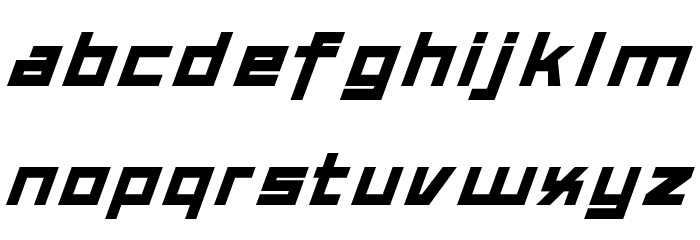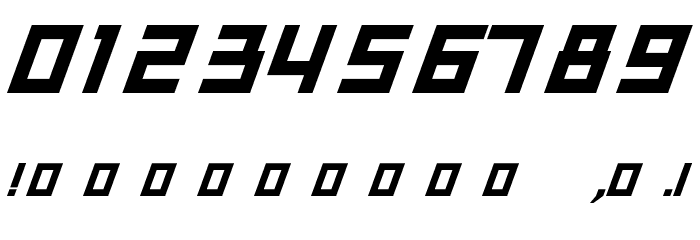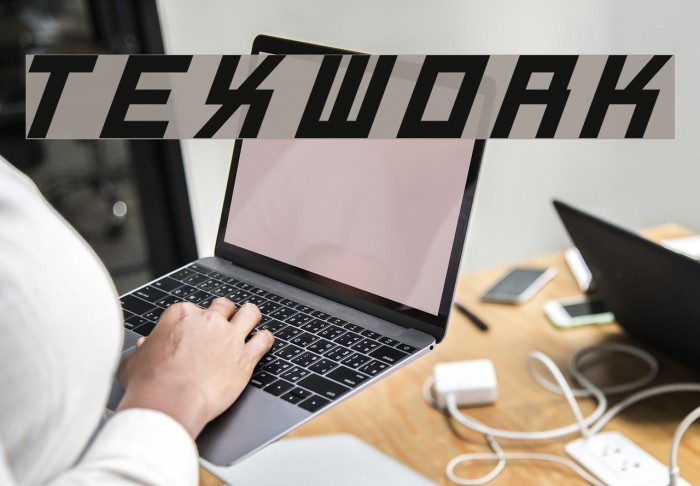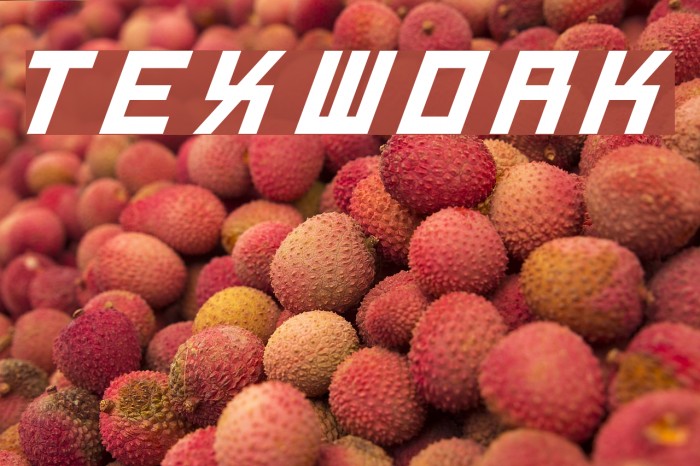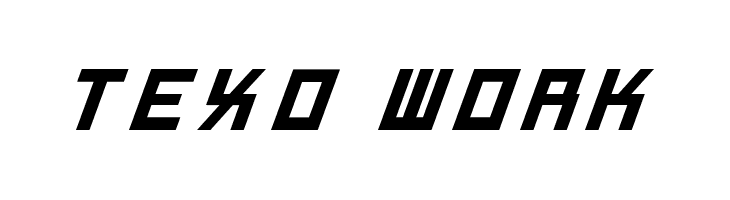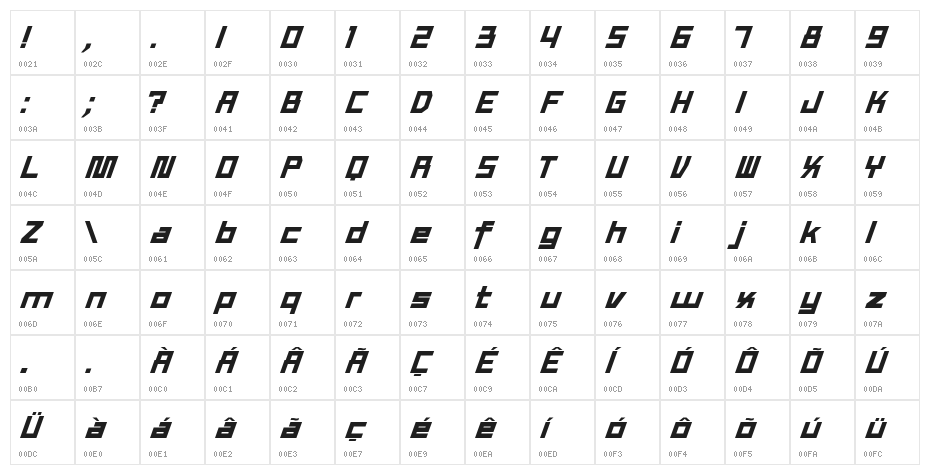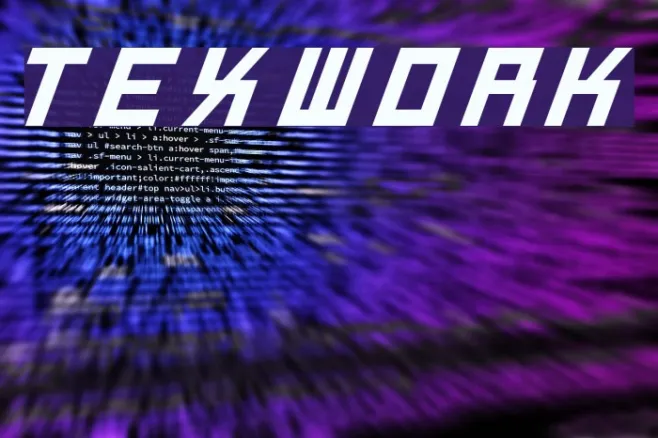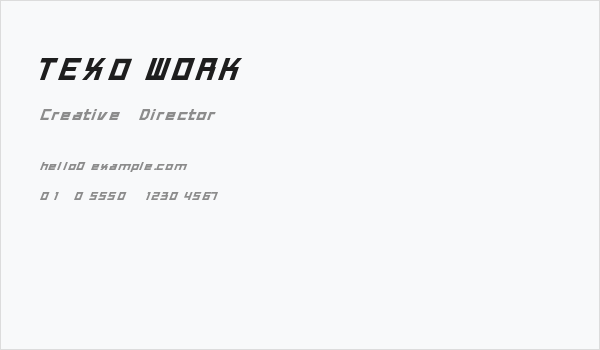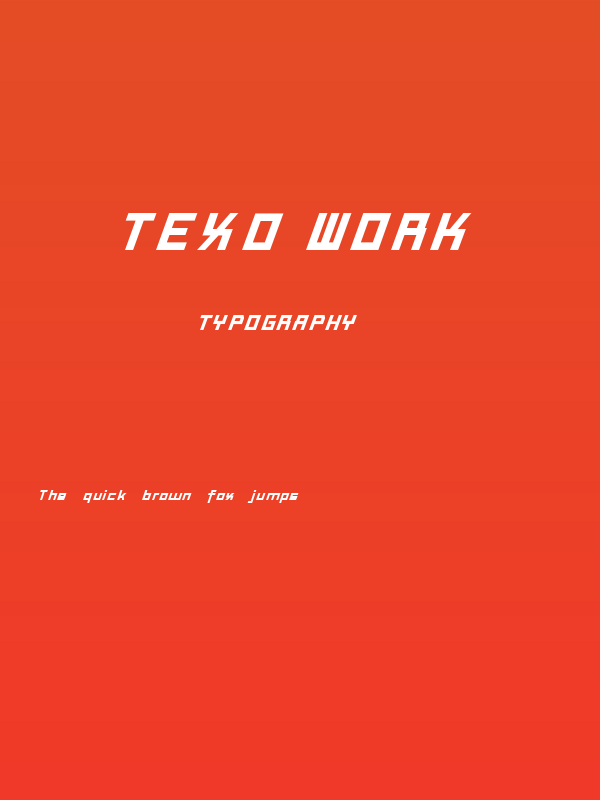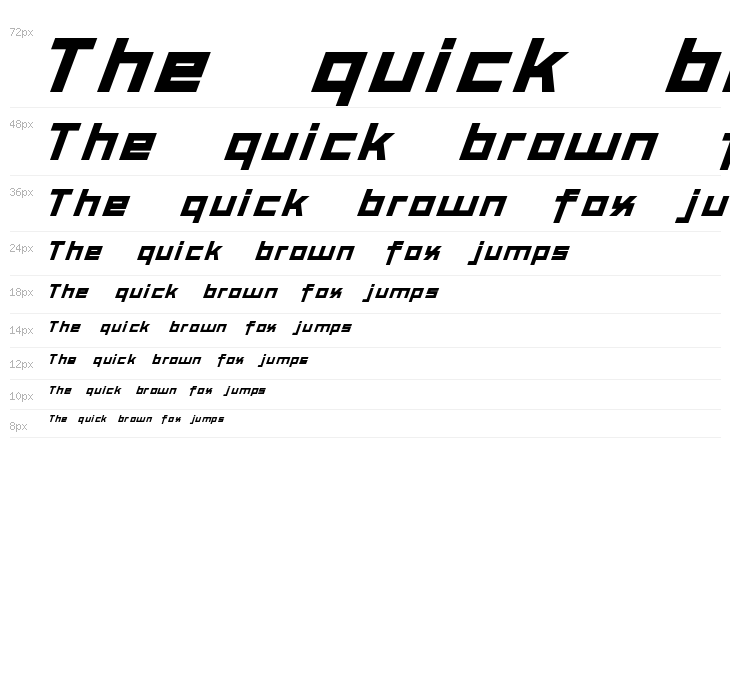
TEX-WORK Font
This font features a bold, angular design with a futuristic and dynamic feel. The characters are slightly slanted, giving a sense of motion and speed. The uppercase and lowercase letters maintain a consistent geometric style, with sharp edges and clean lines. The numerals and special characters follow the same design principles, ensuring uniformity across all glyphs. The overall appearance is modern and sleek, making it suitable for projects that require a strong visual impact.
- Proposed Projects: Ideal for technology branding, sports team logos, video game titles, and sci-fi themed designs.
- Use Case: Logos, Headlines